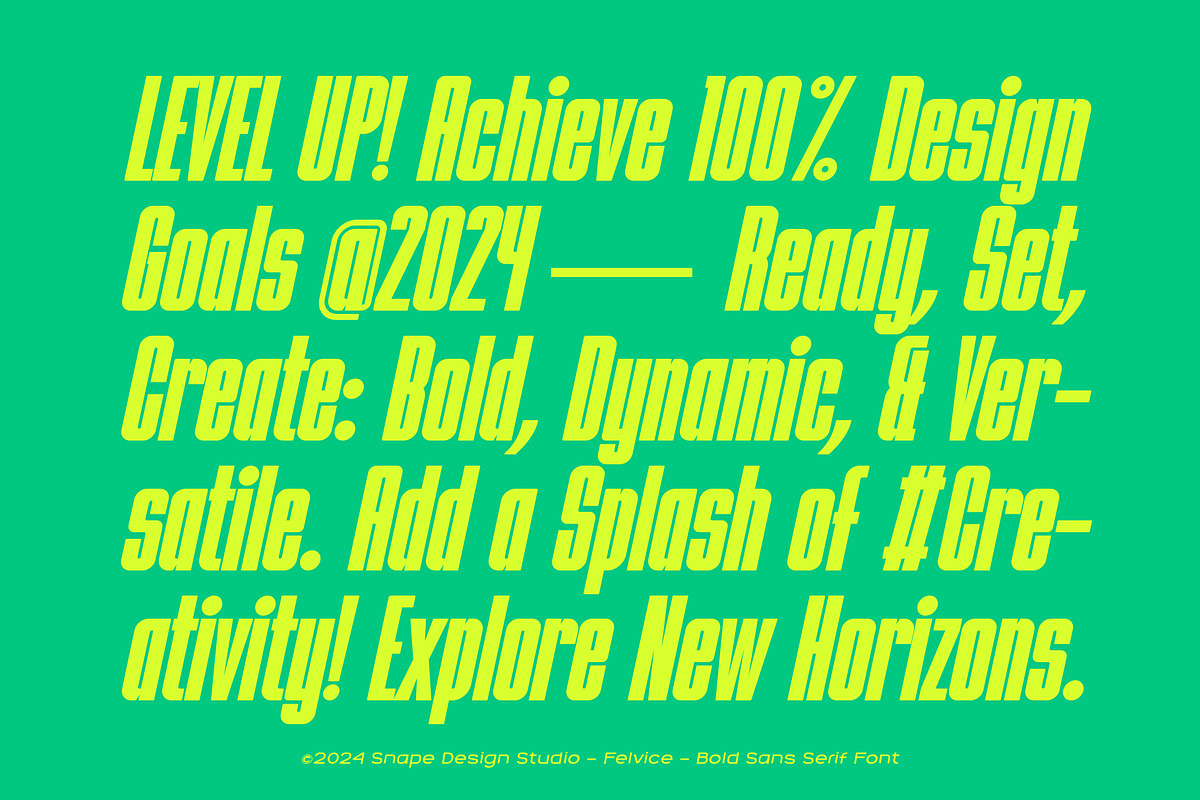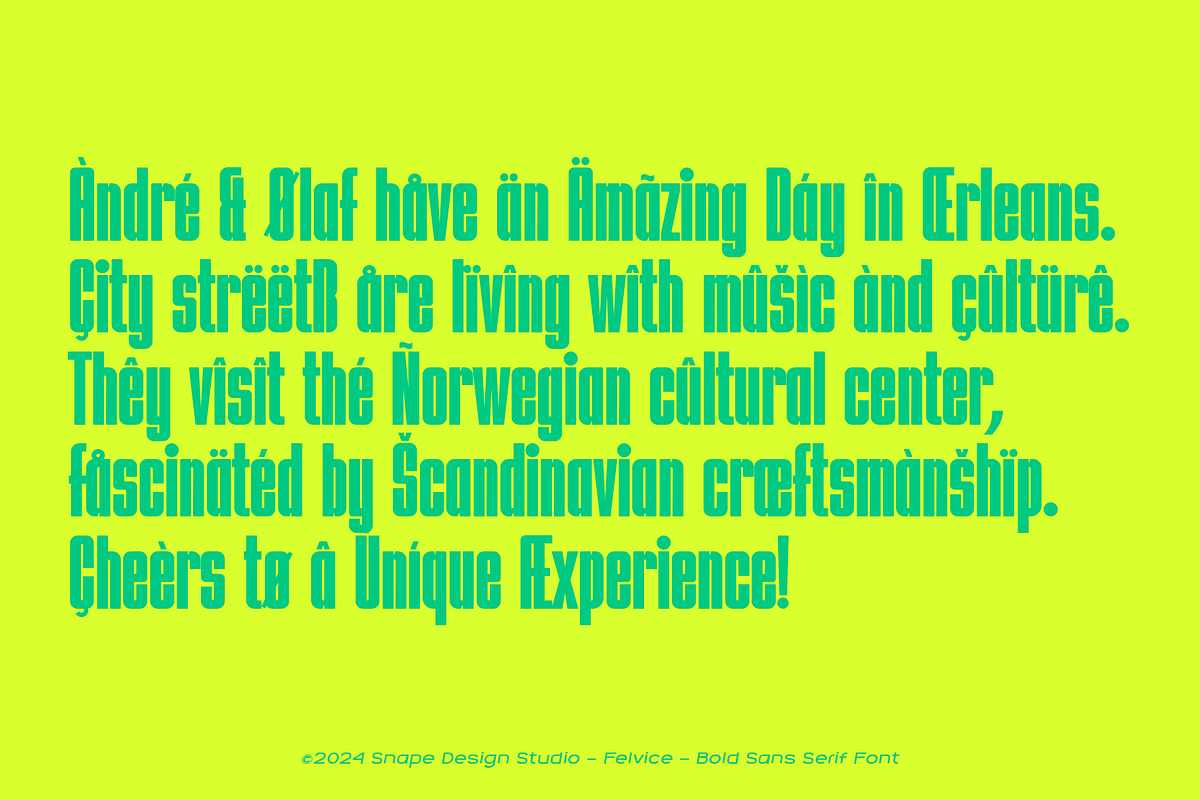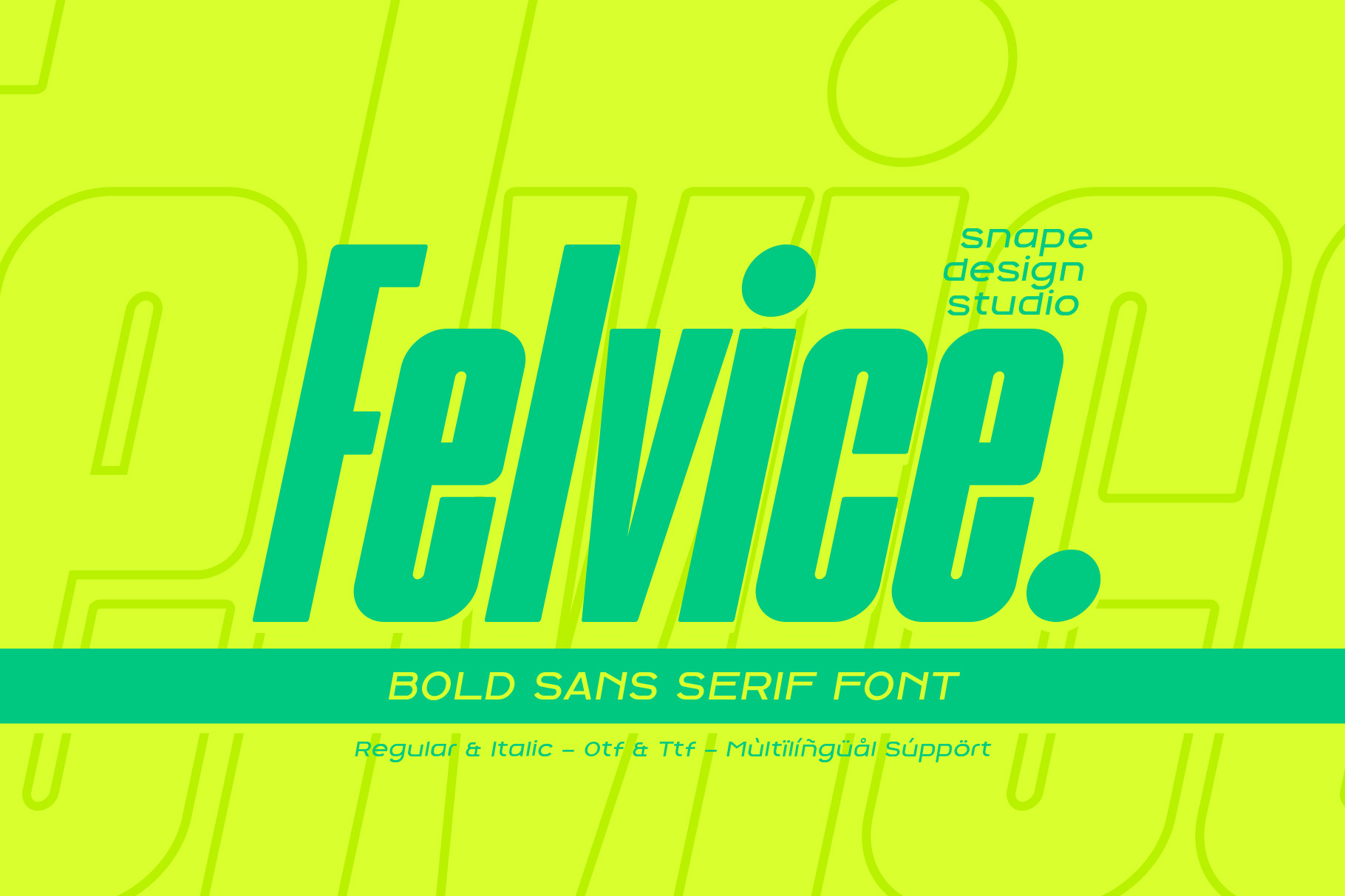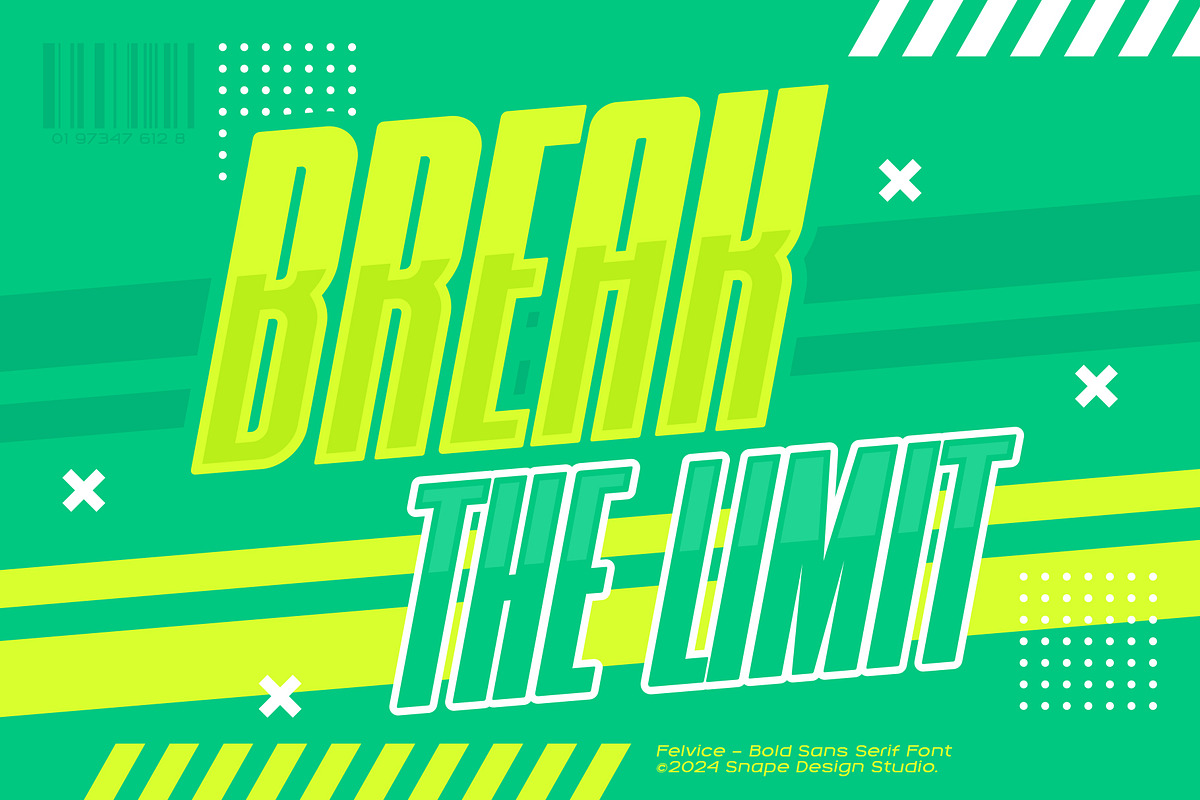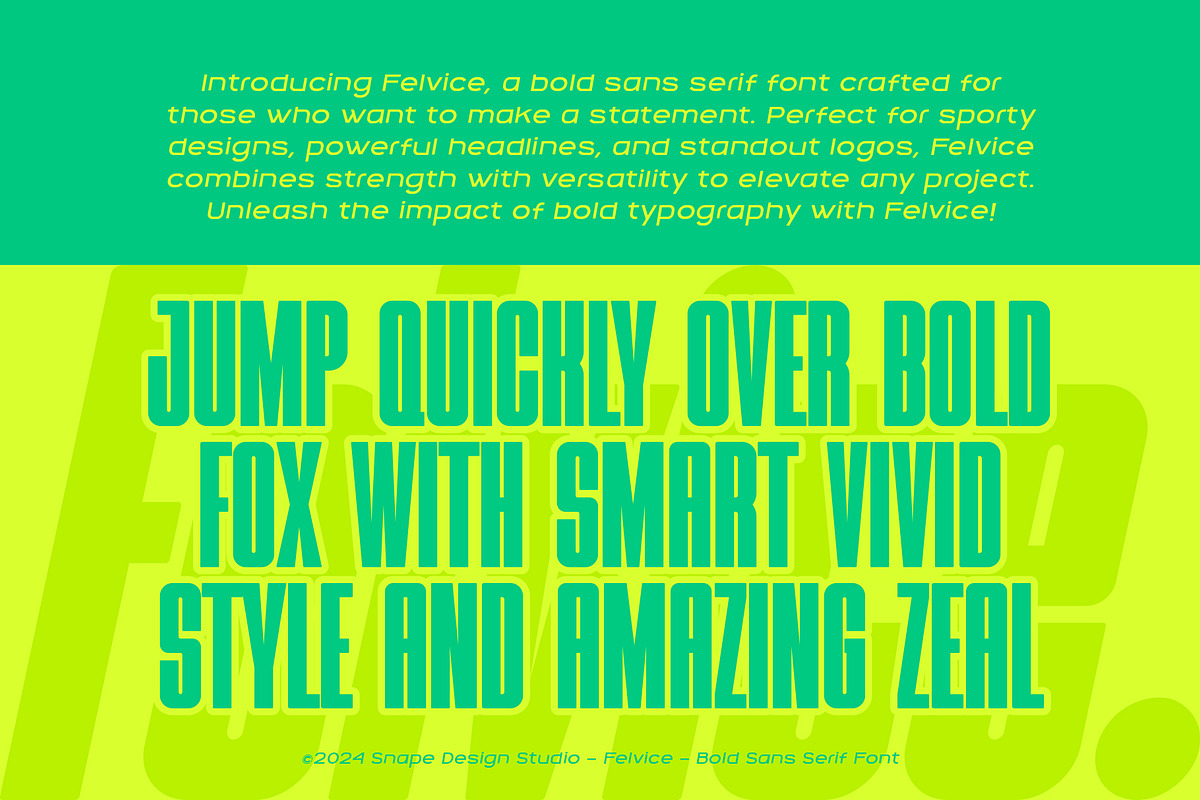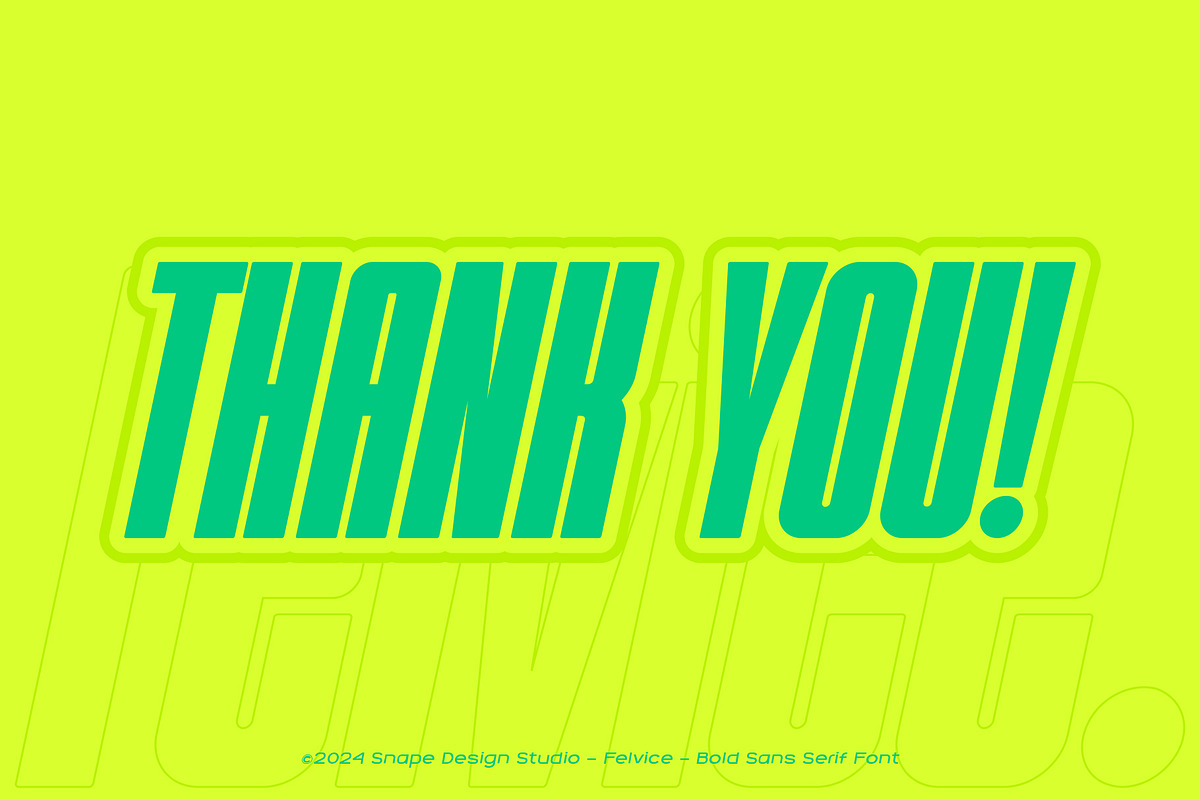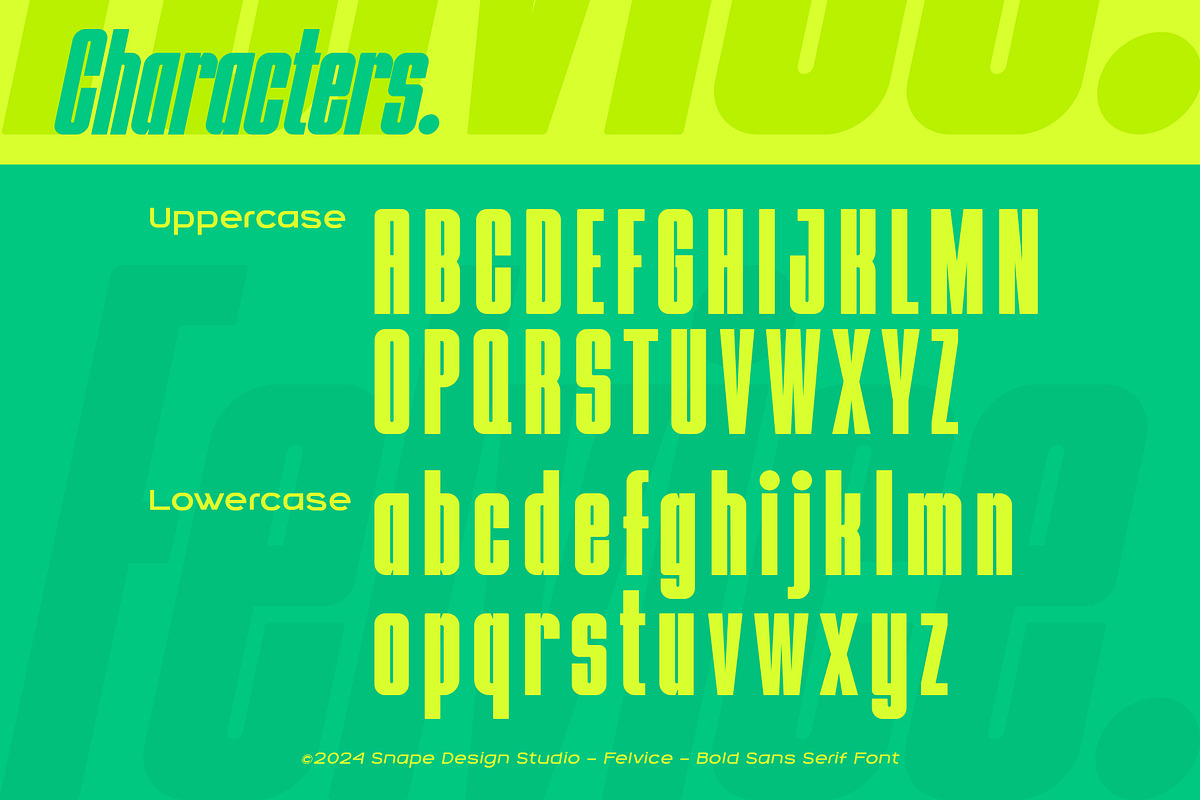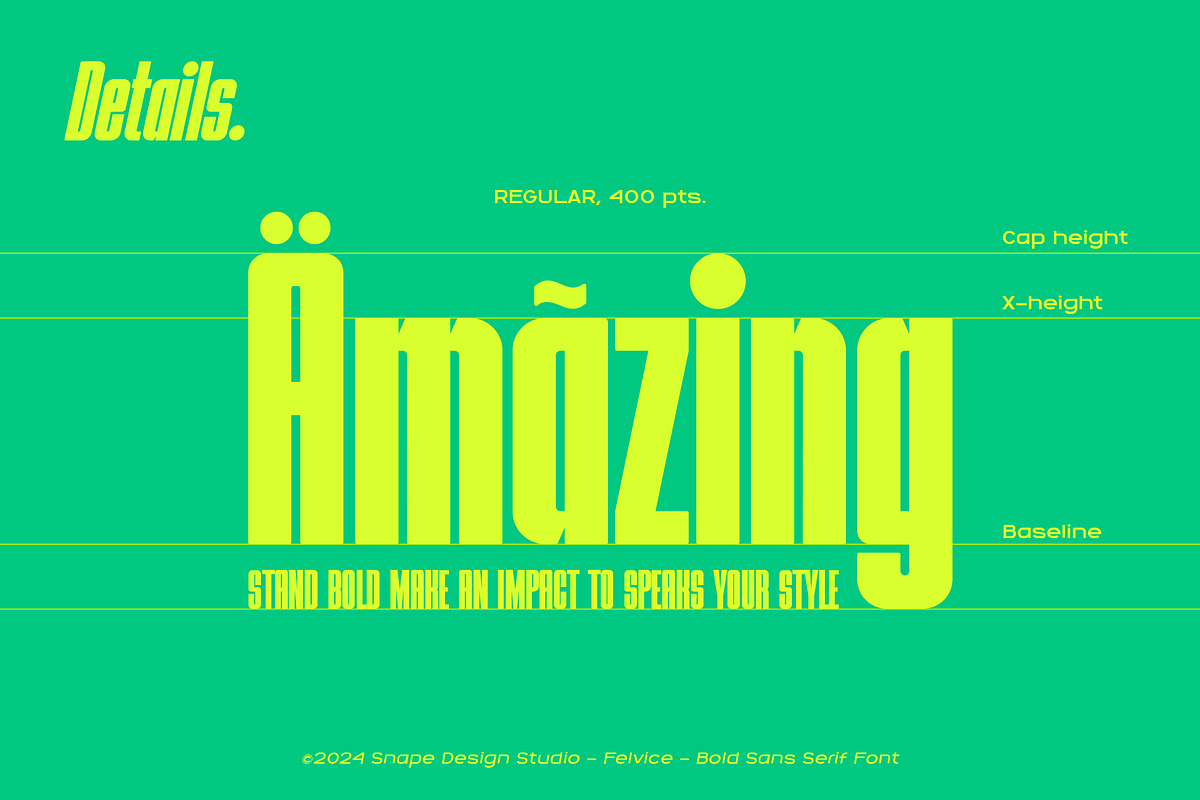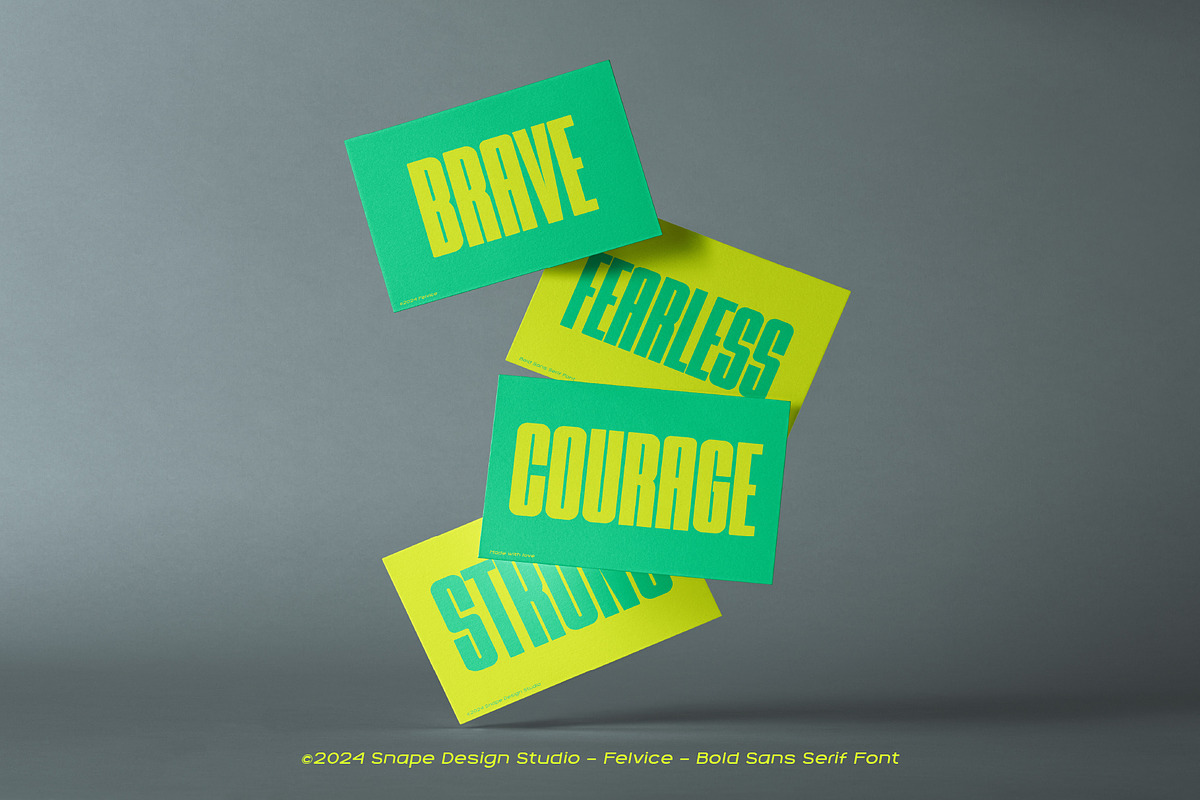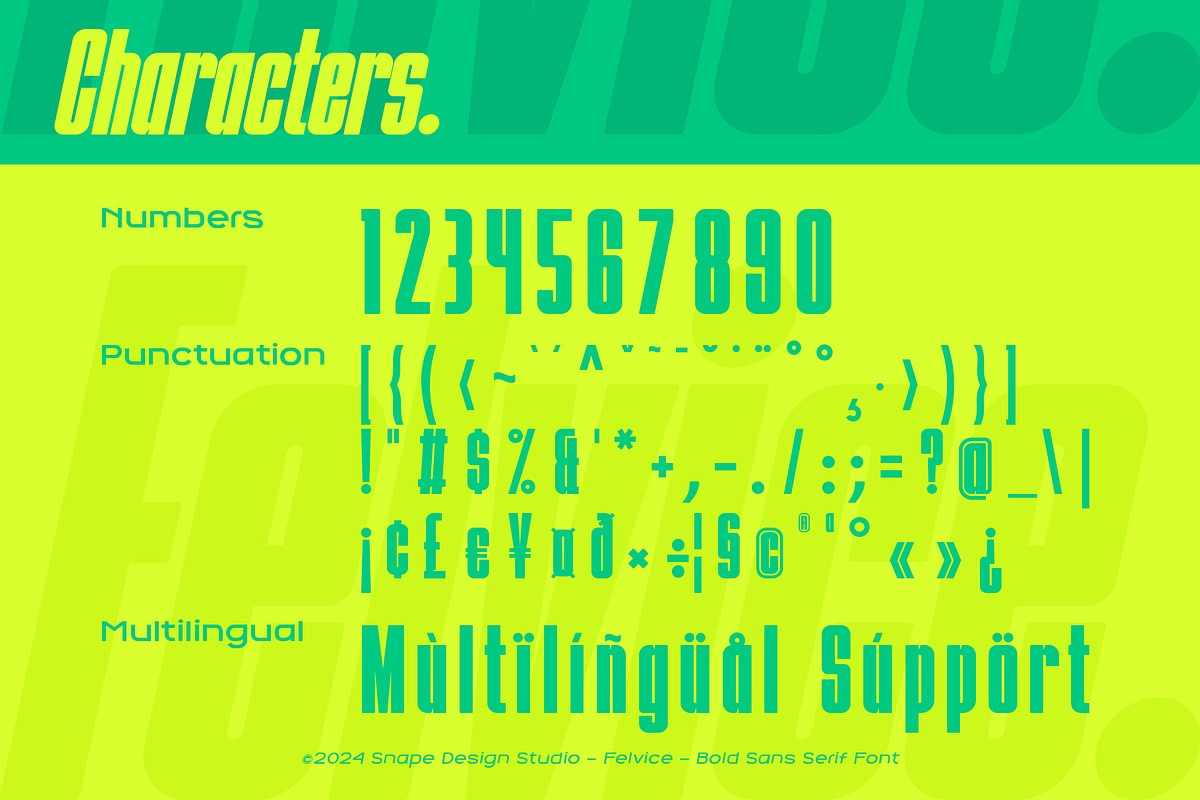
Felvice - The Bold Font
🔥 Introducing Felvice – The Bold Font That Commands Attention! 🔥
Unleash the power of strong visuals with Felvice. Perfect for headlines, posters, logos, and branding, this font is designed to make a statement and leave a lasting impression.
💥 Key Features: ✔️ Bold and impactful ✔️ OTF & TTF file formats for easy use ✔️ Includes uppercase, lowercase, numbers, and punctuation ✔️ Comes in Regular and Italic styles ✔️ Multilingual support for global creativity